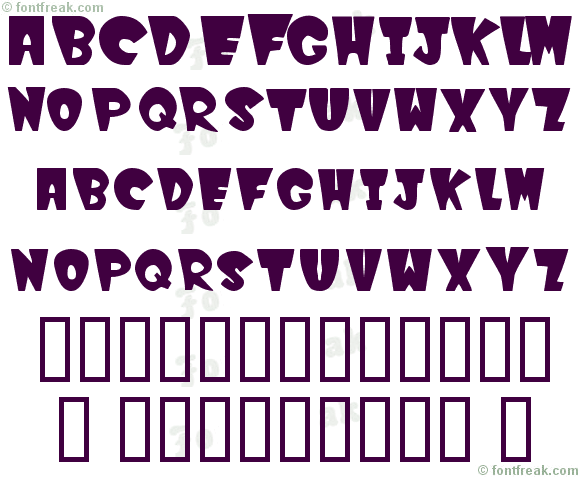
WinksFilled
About Winks Filled
Winks Filled by Cheapskate Fonts is a charming display typeface that brings a playful yet sophisticated flair to any design project. This decorative font features a bold and whimsical style, characterized by its filled-in letterforms that create a striking visual impact. The stroke weight is consistent throughout, contributing to a uniform appearance, while the rounded edges add a friendly touch. The letter spacing is well-balanced, ensuring readability without sacrificing its artistic essence.
This font is particularly well-suited for creative applications such as wedding invitations, where its unique aesthetic can enhance the joyous occasion. It also shines on movie posters, lending a sense of fun and excitement that captures the viewer's attention. Restaurant menus can benefit from the Winks Filled font as well, providing an inviting and approachable look that complements a diverse range of culinary themes. Additionally, small business branding, especially for shops targeting a younger audience, can effectively utilize this font to convey a lively and modern vibe.
What sets Winks Filled apart is its ability to blend fun with functionality, making it a go-to option for various design needs. The playful character of the font, combined with its ease of use, ensures that it will stand out in any setting. For those seeking a distinctive typeface that embodies joy and creativity, the Winks Filled font free download is a fantastic choice that can elevate any design endeavor.